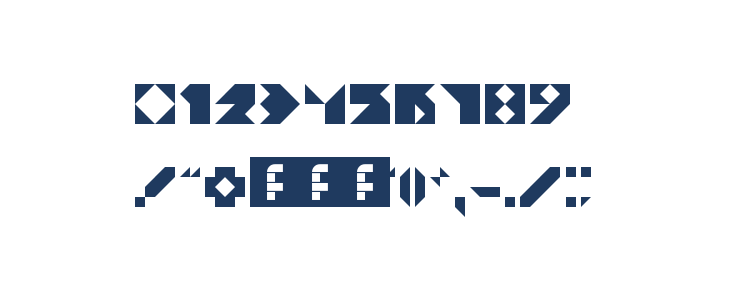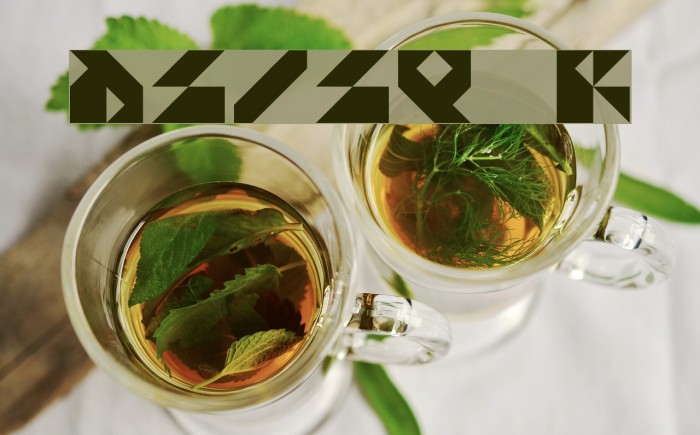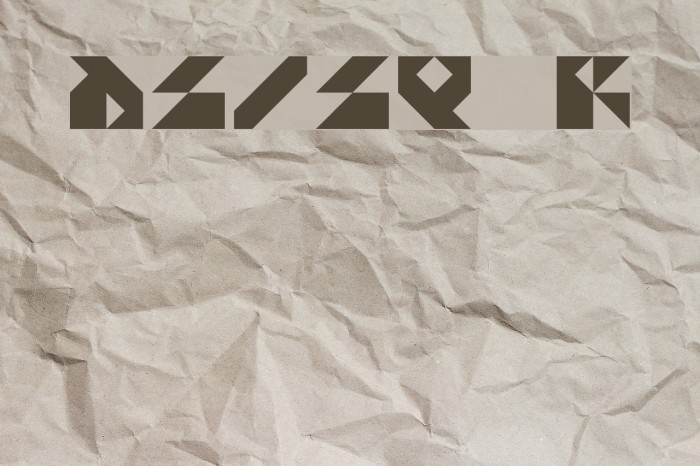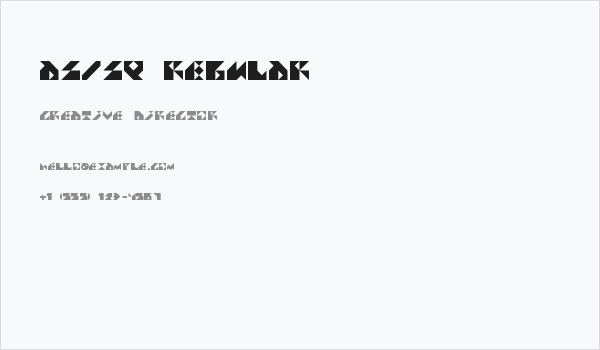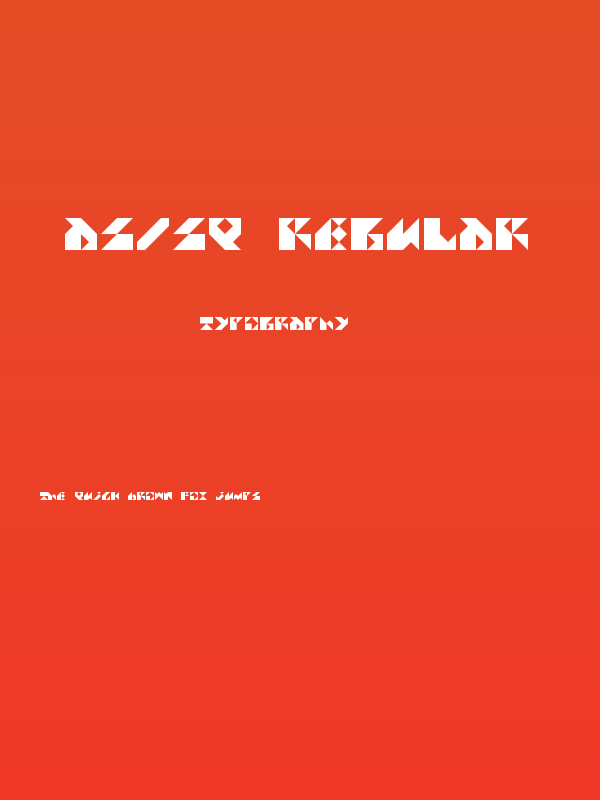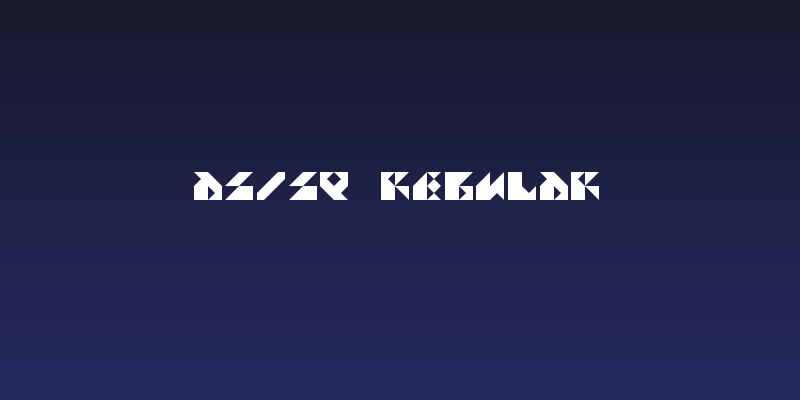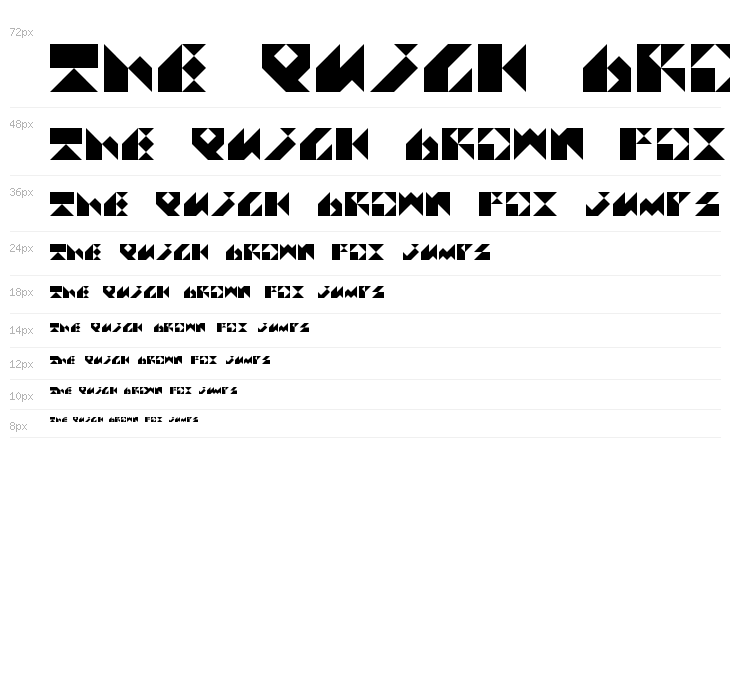
AS/SQ Regular Font
AS/SQ Regular Description
This font features a bold, geometric design with sharp angles and a futuristic aesthetic. Each character is constructed from a series of triangles and polygons, creating a highly stylized and abstract appearance. The uppercase and lowercase letters maintain a consistent visual theme, emphasizing symmetry and precision. Numbers and special characters follow the same design principles, ensuring uniformity across all glyphs. The font's unique style makes it stand out, ideal for projects that require a modern and edgy look.